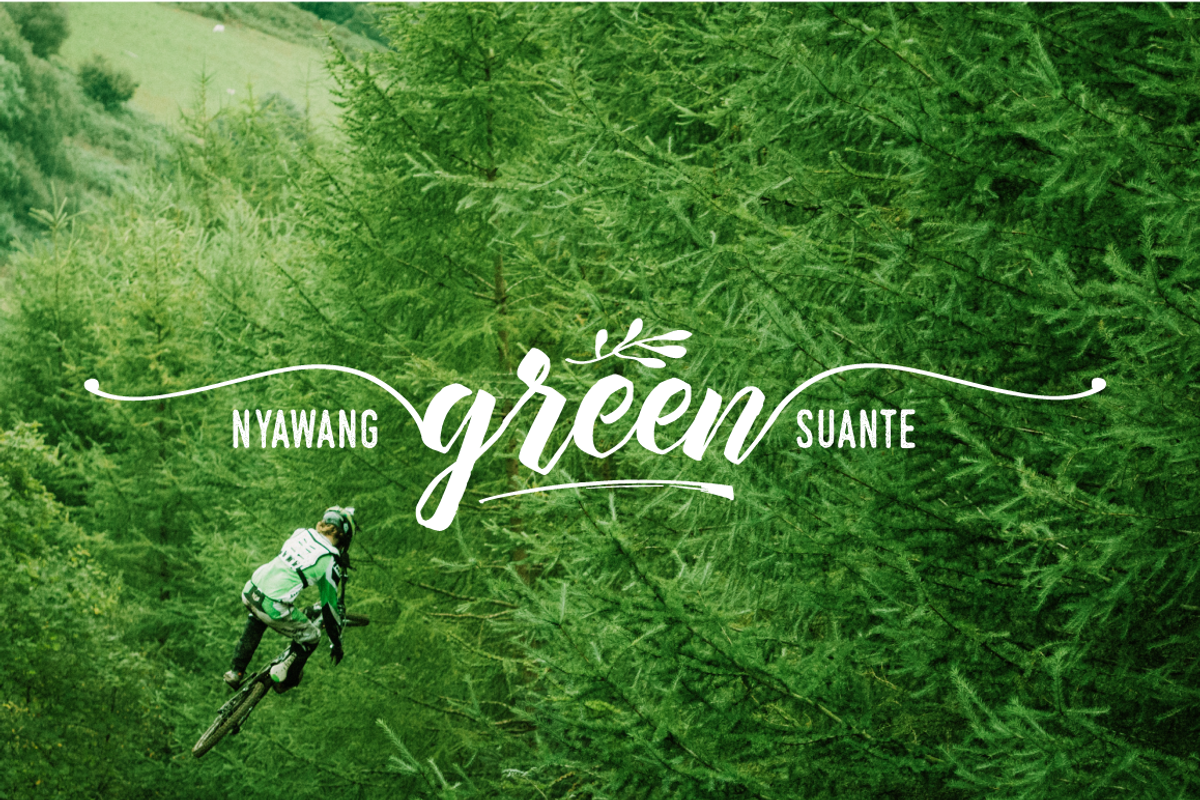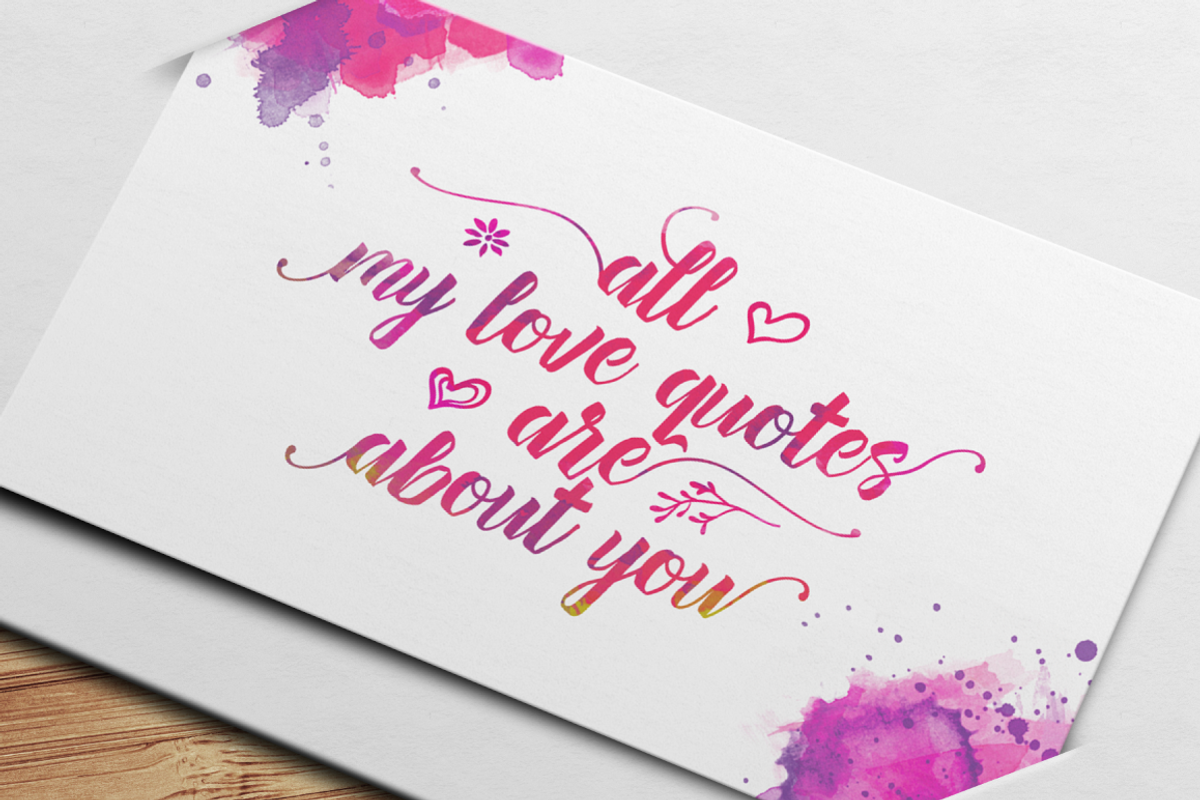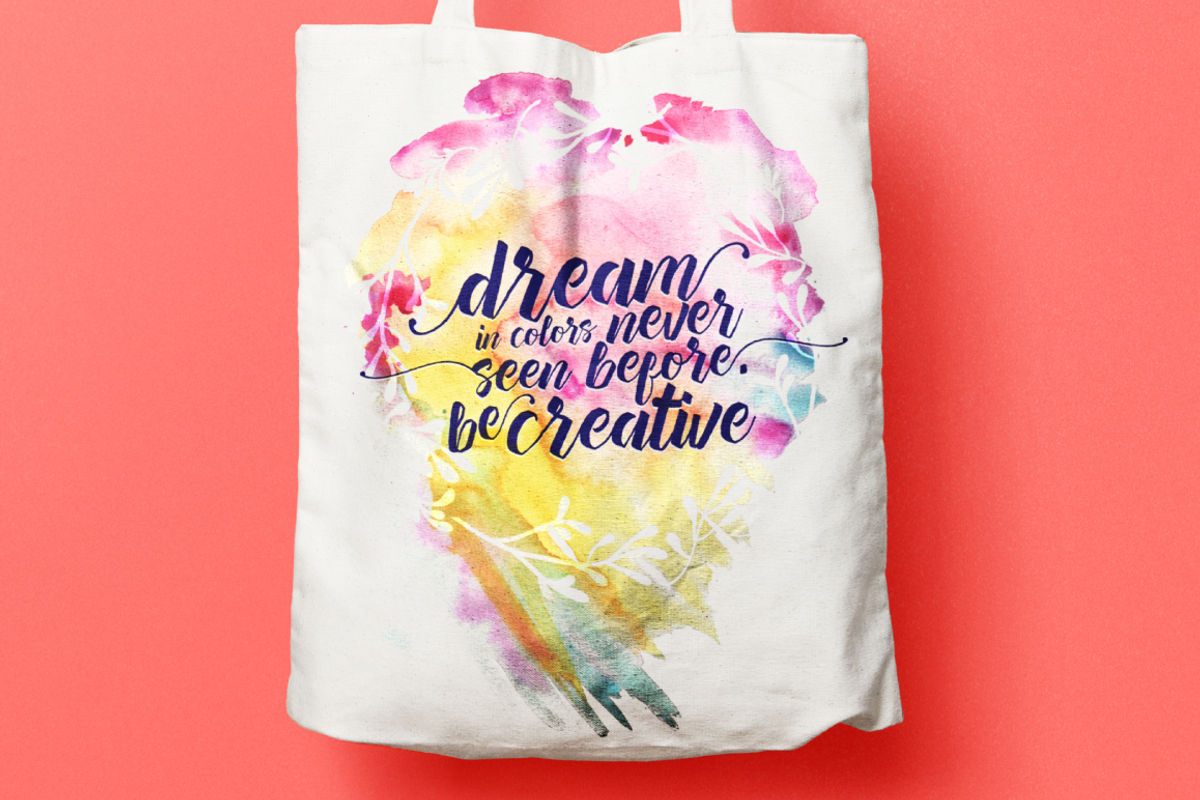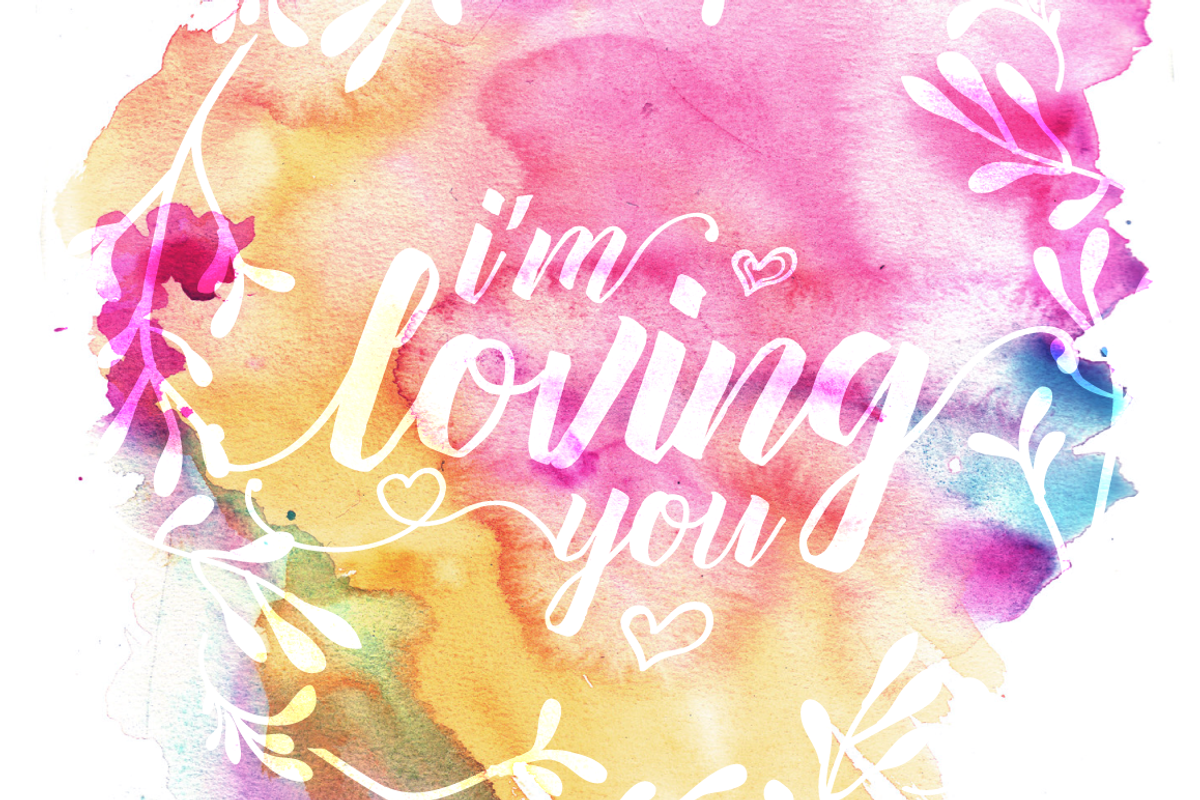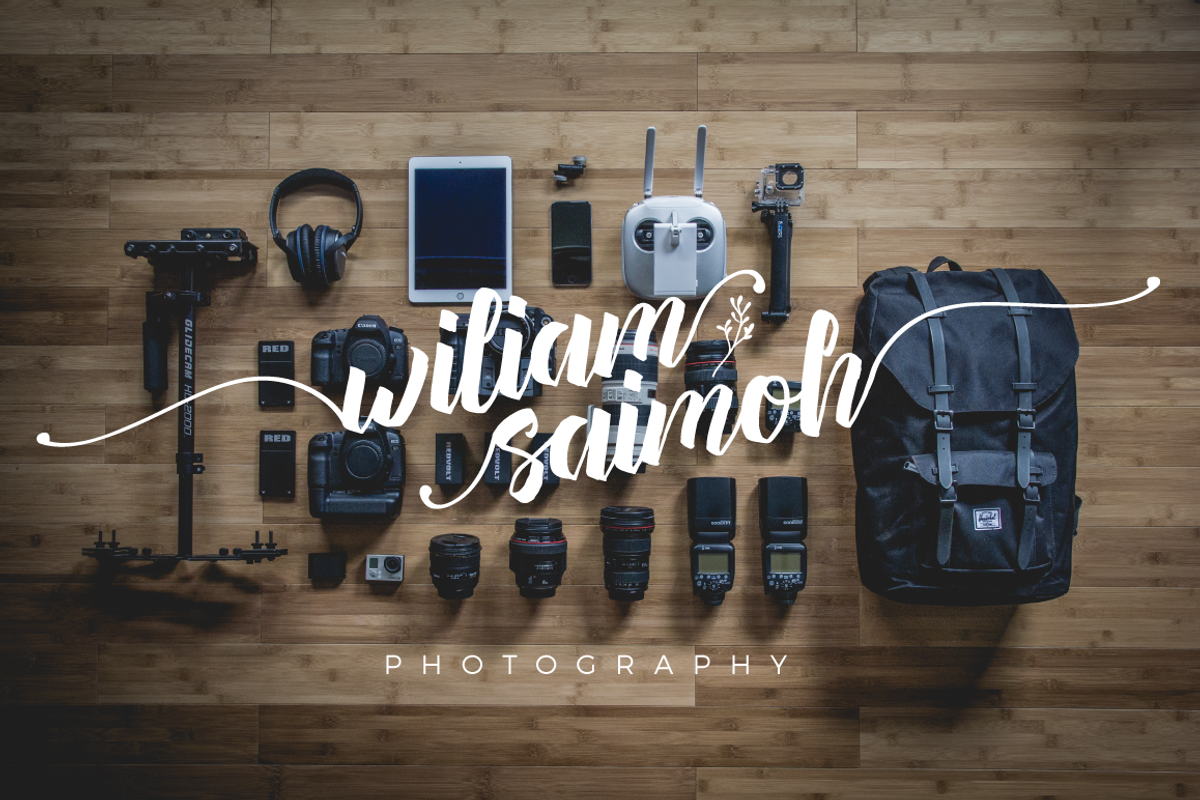
Hello Lary - Cursive Font
Hello Lary - Cursive Font by Typia Nesia is a font selected for branding, posters, packaging, typography.
- +Extras (vector) : 26 Ornament and Swashes to add punch to your designs.
- And other Glyphs variation of the OpenType features such as Standard Ligature and Stylistic Set.
- Stylistic Set are available for lowercase characters.
Why Hello Lary - Cursive Font is worth a look
Hello Lary - Cursive Font by Typia Nesia fits naturally into Branding, posters, packaging, typography.